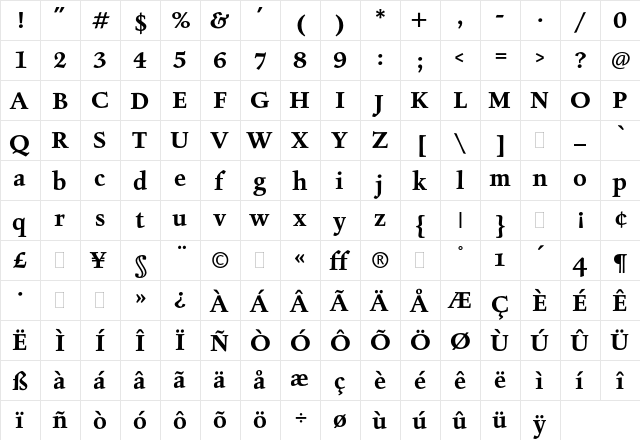
Figural Bold Plain
Design Context for Figural Bold Typeface
Figural Bold takes a measured approach to typography — its balanced proportions and neutral character make it a reliable workhorse for both digital and print work. Its bold stroke weight gives it real presence on the page.
Pro Tip: Use Figural Bold in both headline and body roles to test its range before committing to a single application.